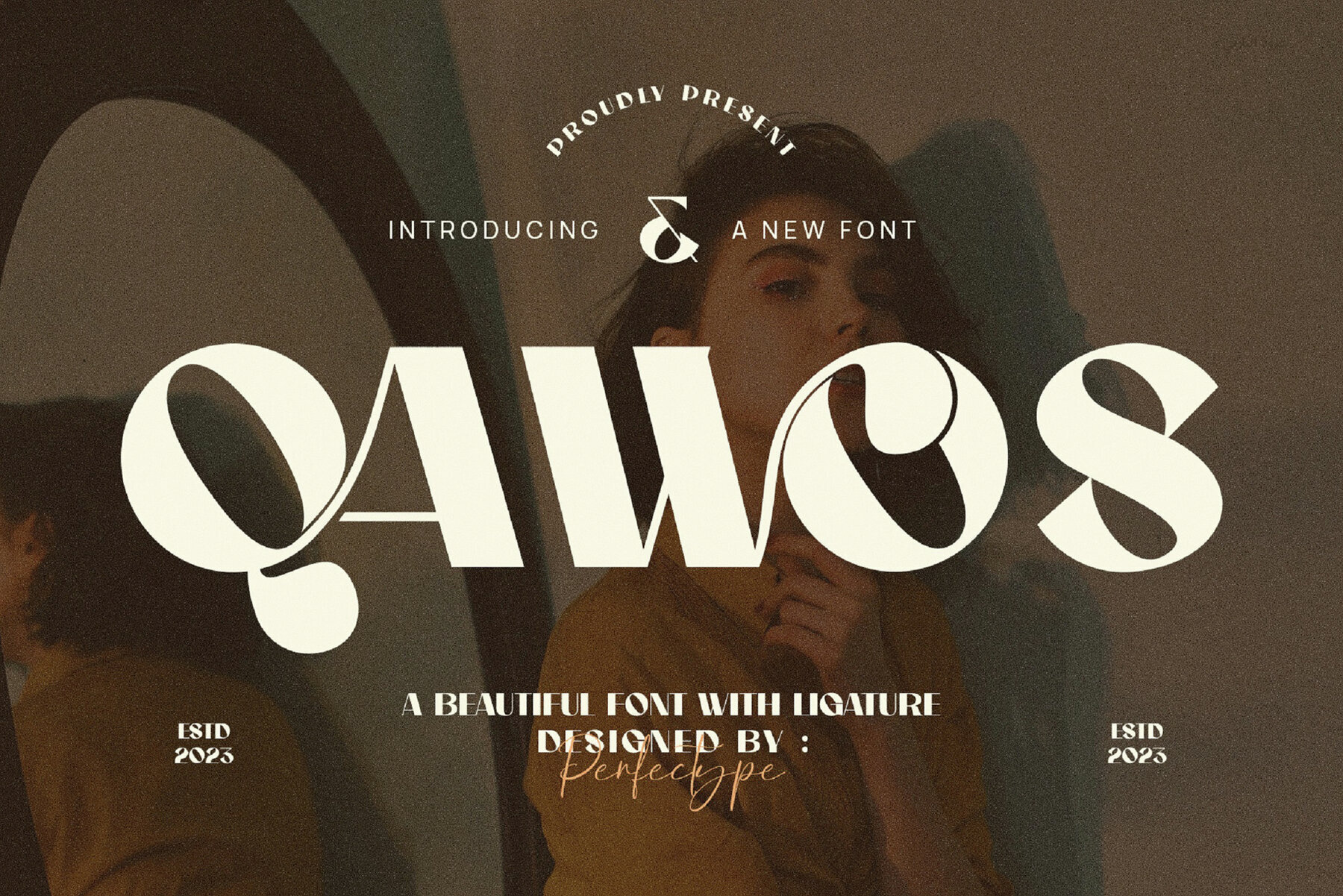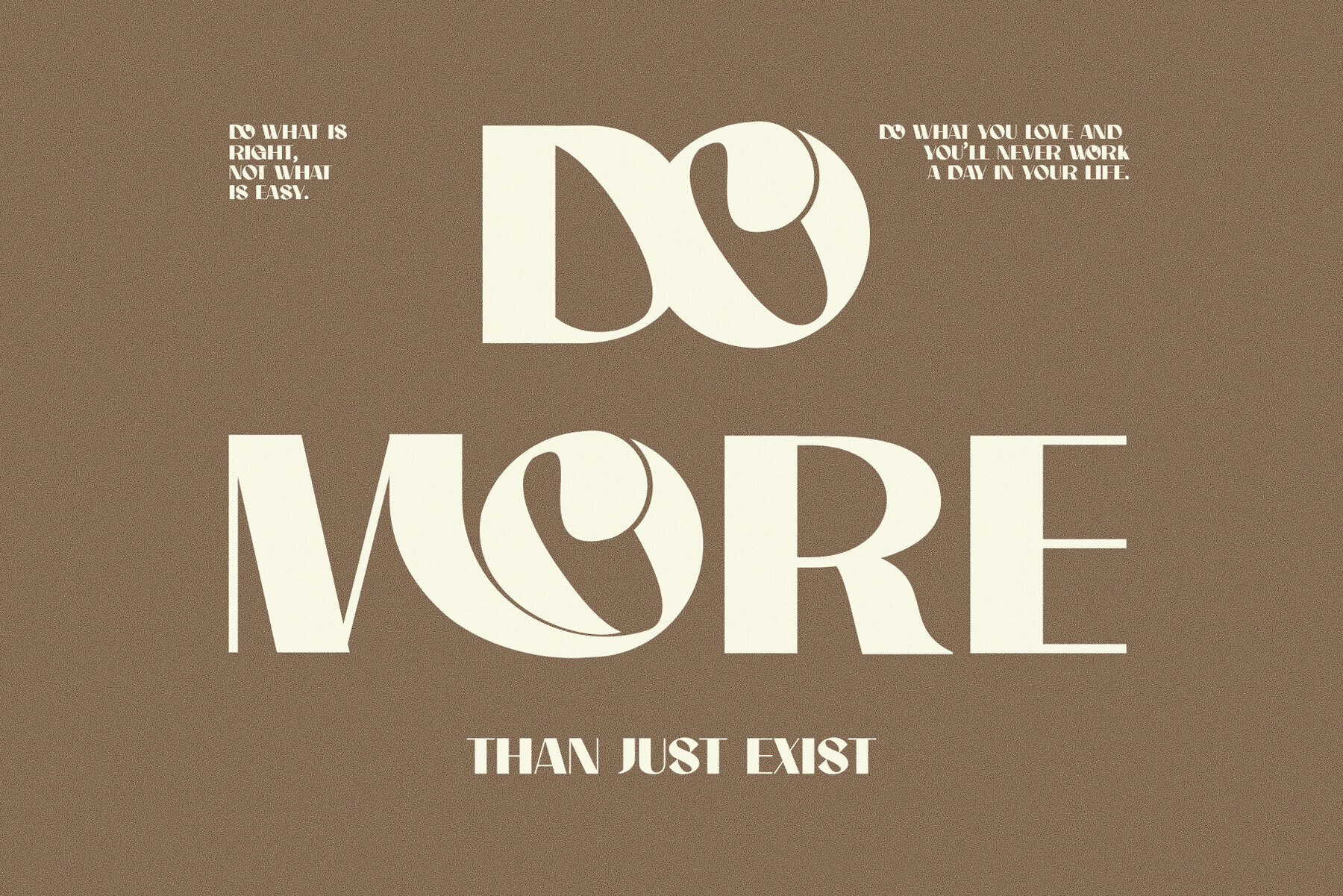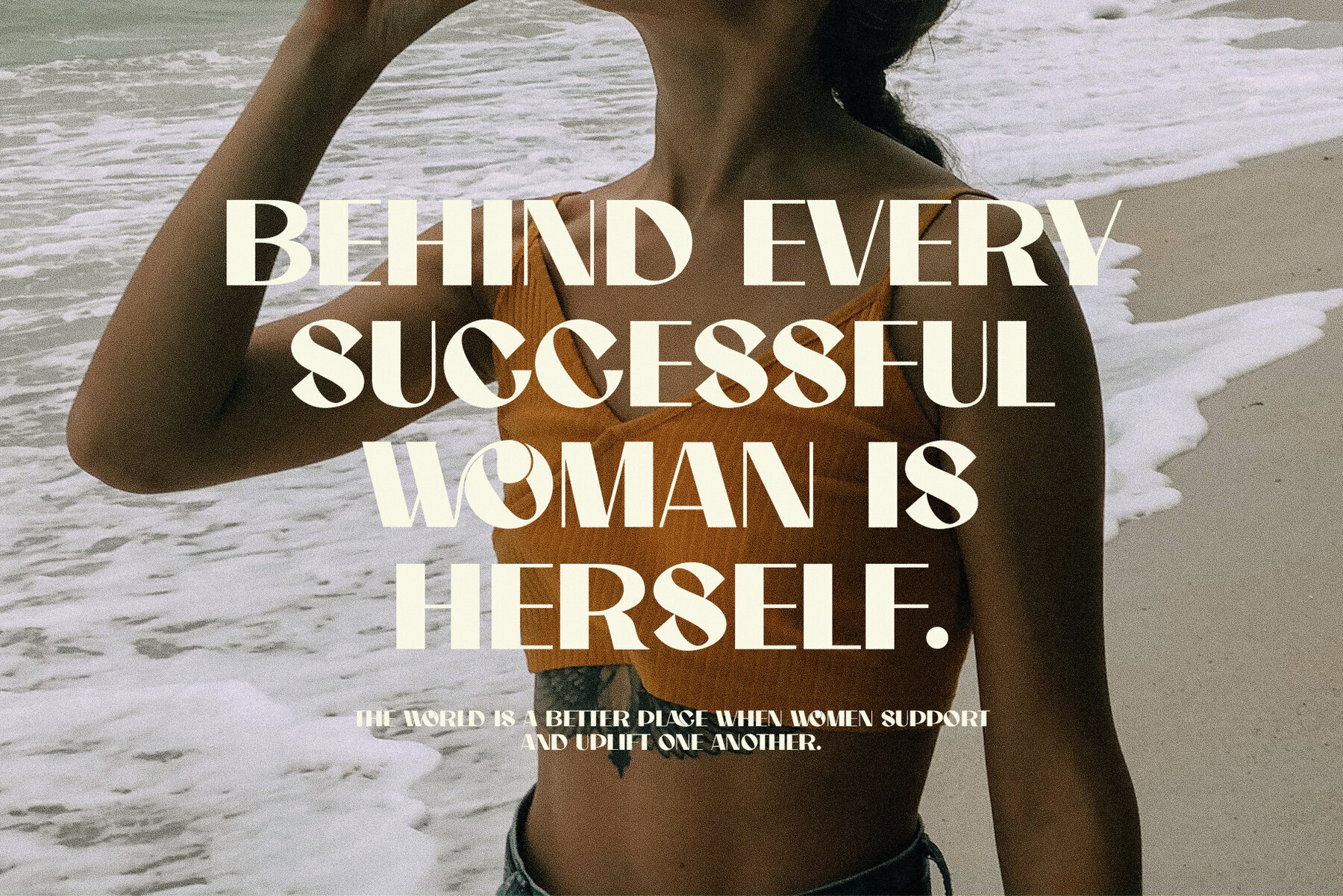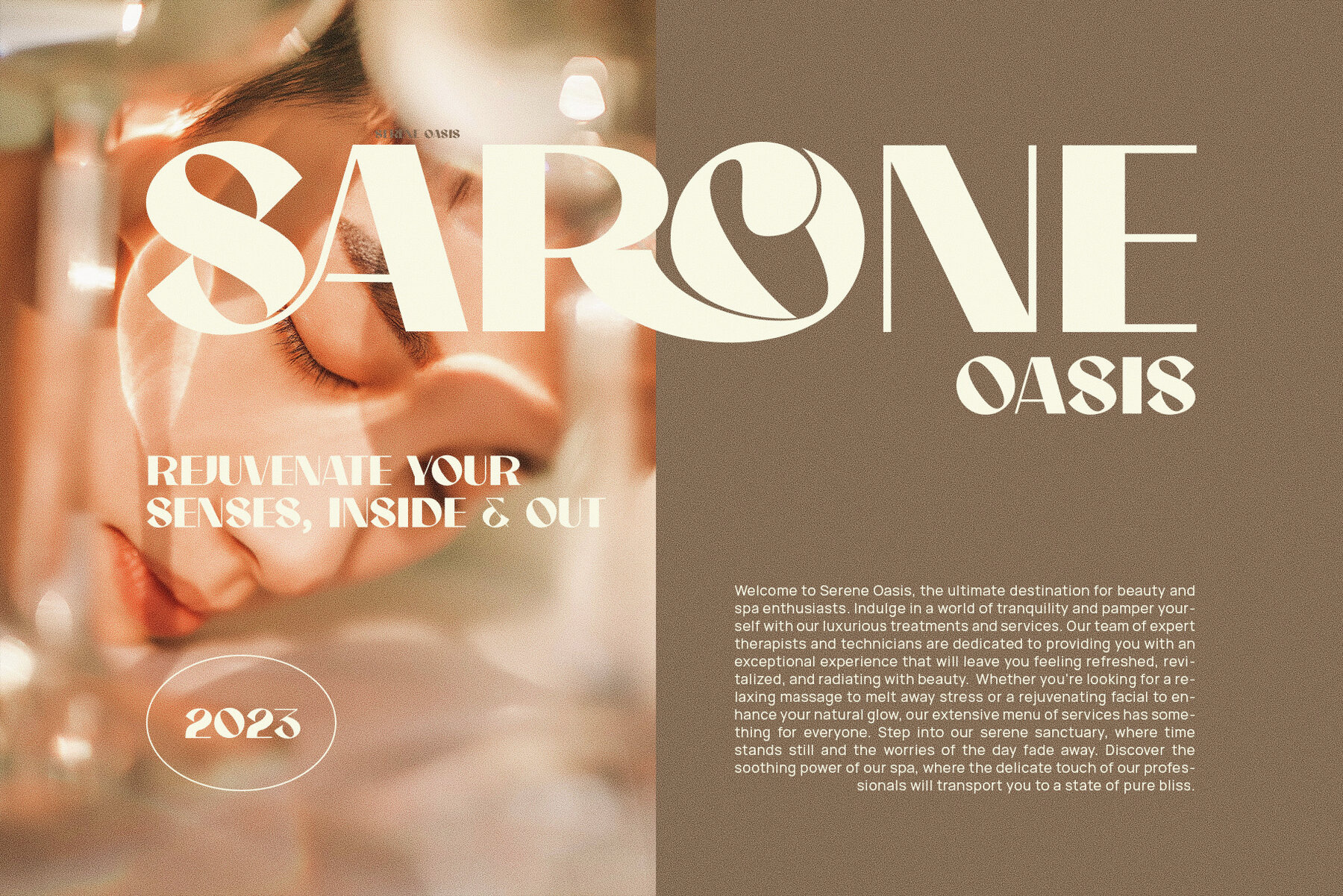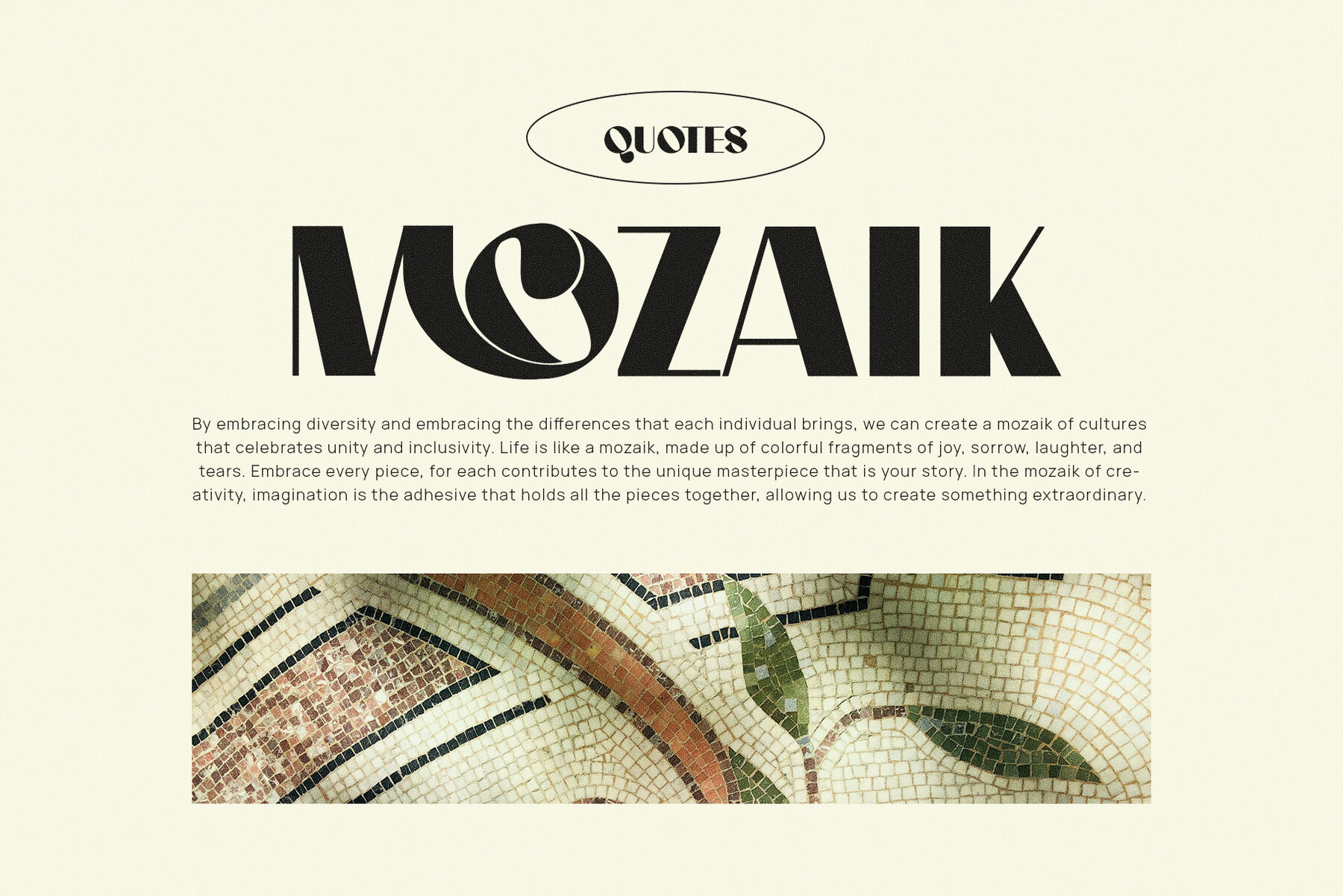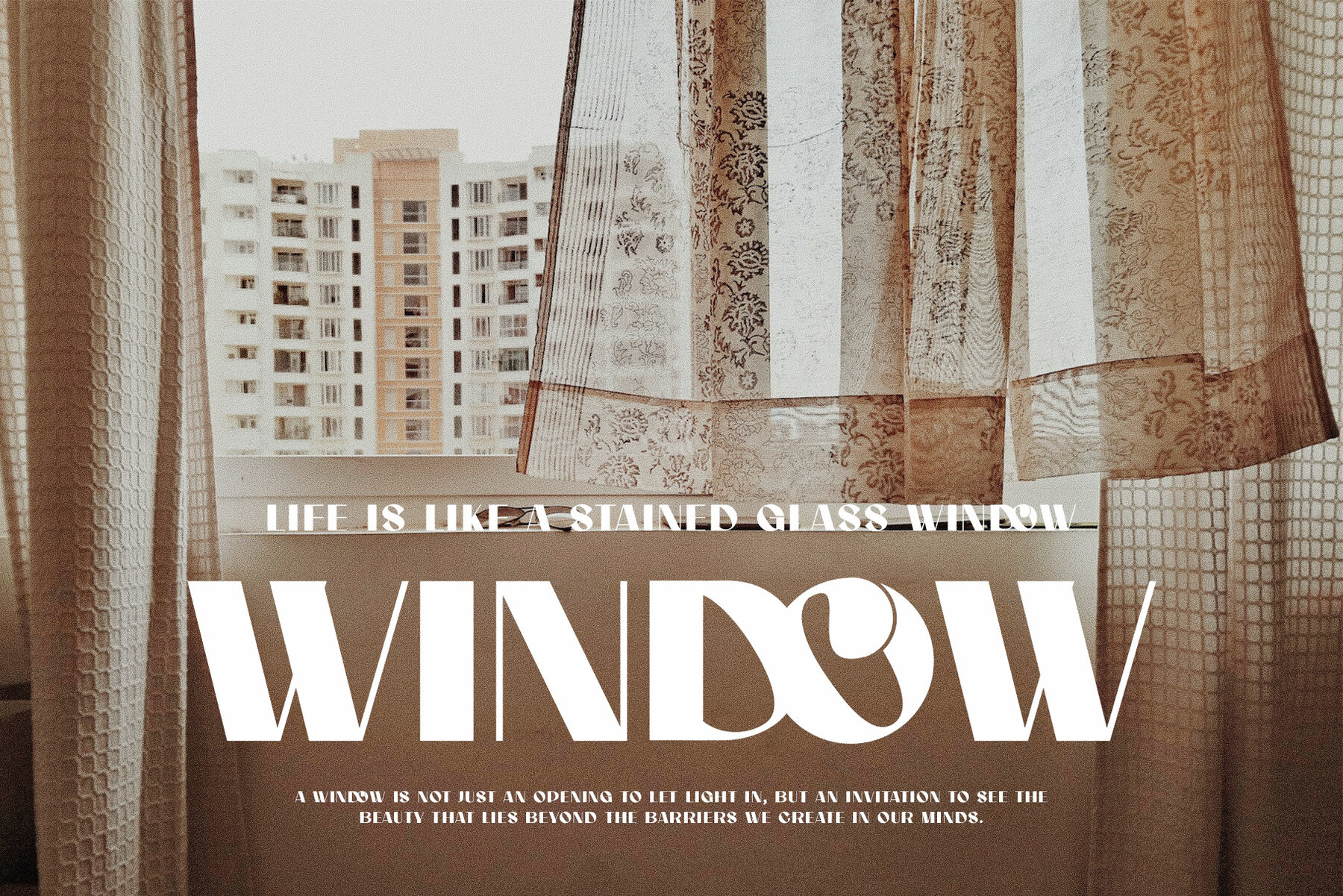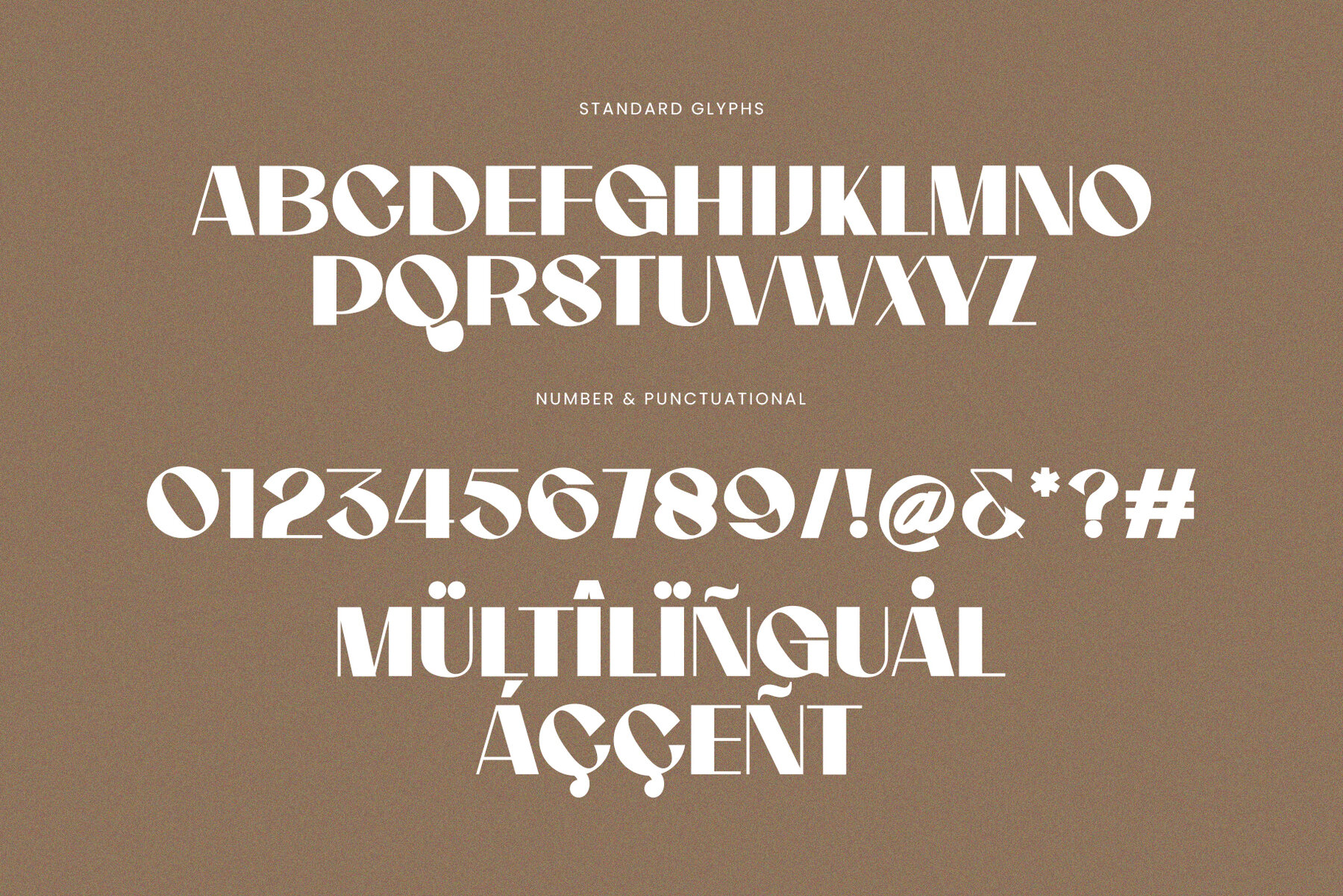
Qawos Font
Qawos Regular
Qawos is an elegant, luxurious sans-serif font, perfect for refining your design projects. Ideal for branding, logos, social media posts, advertisements, labels, product packaging, photography, wedding designs, watermarks, invitations, and stationery. Crafted with high legibility, it ensures your message stands out. Features include standard characters, numbers, punctuation, and accented characters (Western Europe). Compatible with PC and Mac. Best used with Adobe Illustrator or Adobe Photoshop.